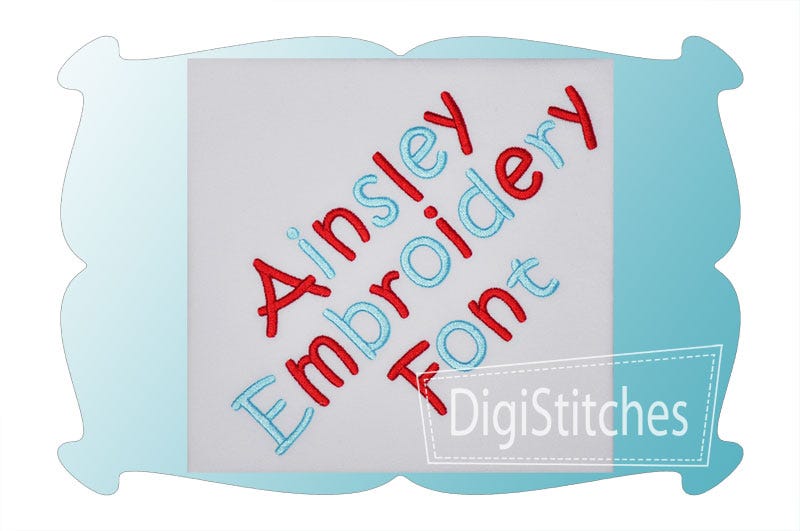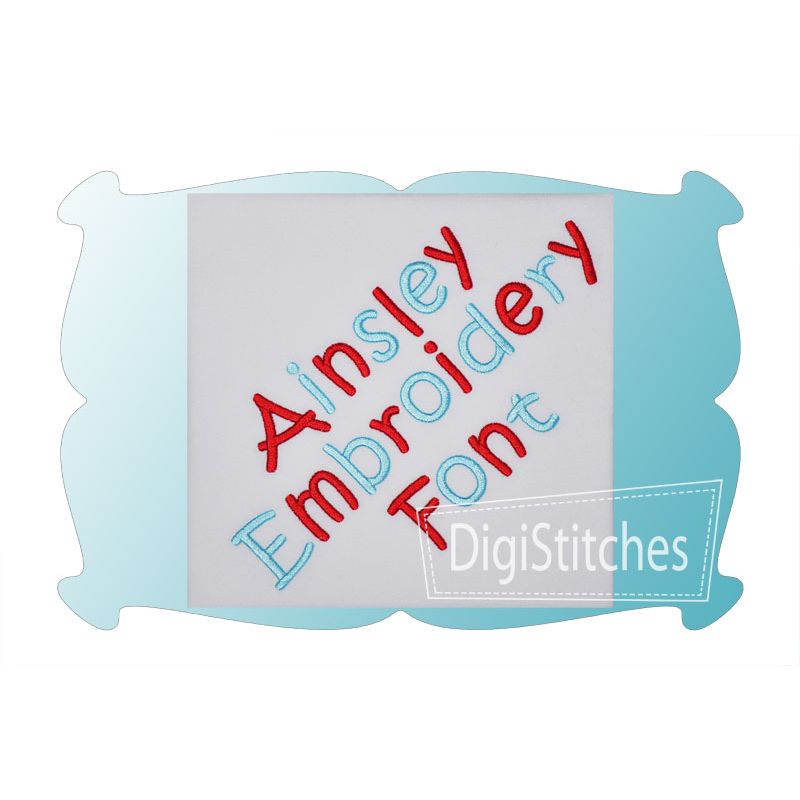
Ainsley Satin Stitch Embroidery Font
Ainsley Embroidery Font
Ainsley embroidery font features super bold letters that really stand out on t-shirts and projects.
The perfect font for both boys and girls.